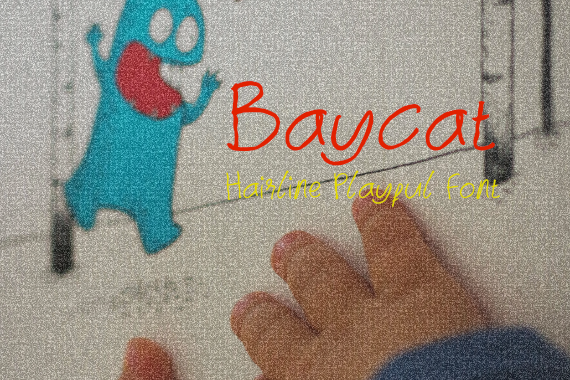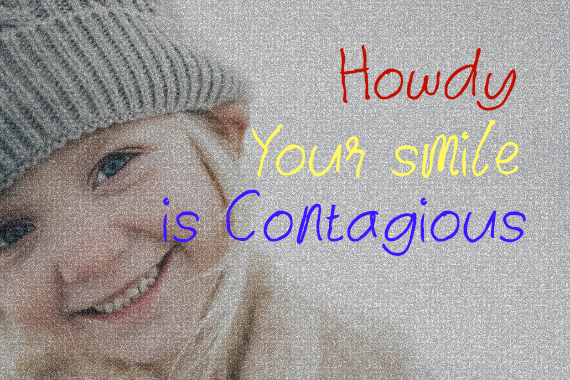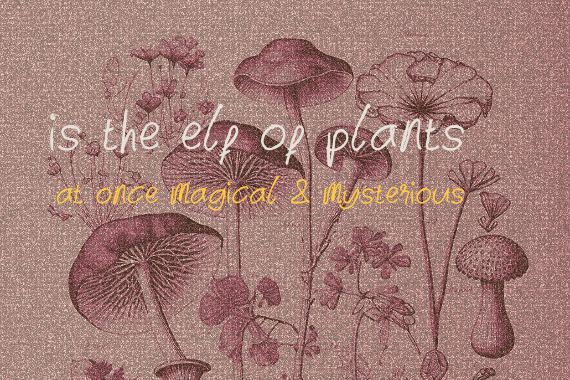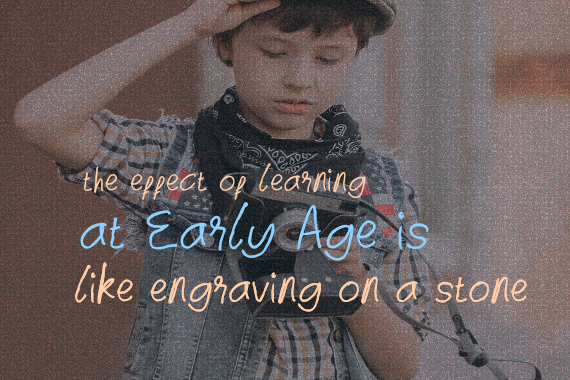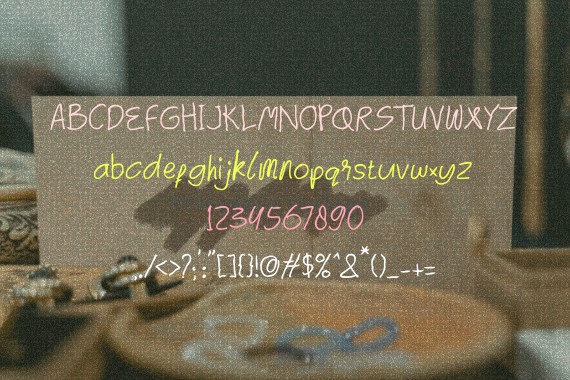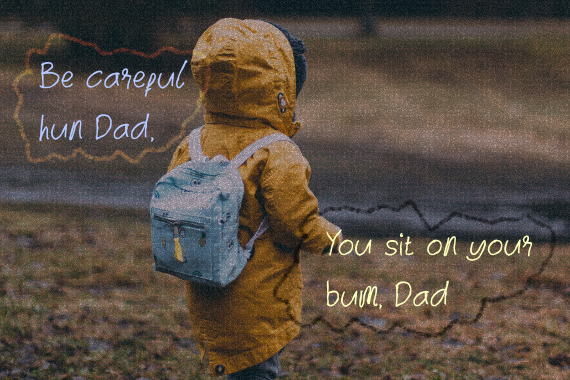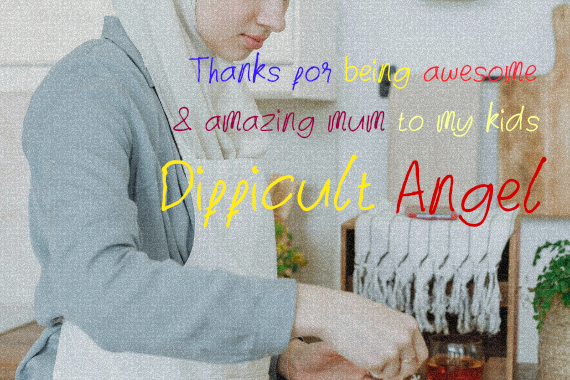
Baycato font font is set of hairline hand-drawn fonts, designed to mimic lively, imperfect and friendly lettering. It’s a charming choice for personal-feel logo designs, quotes, packaging, kid-friendly products, fun greeting cards, craft and more.